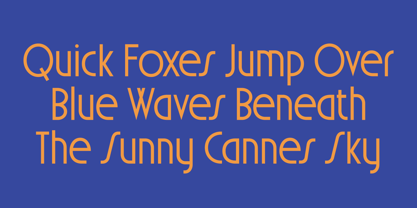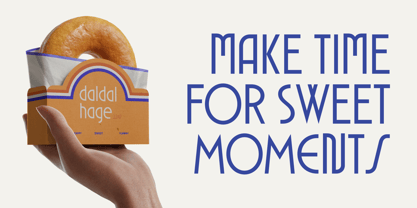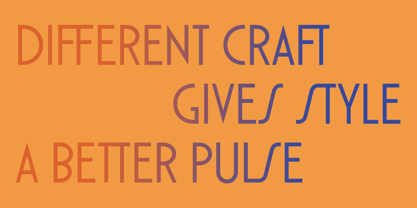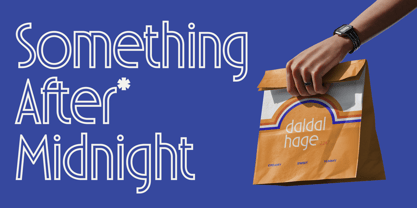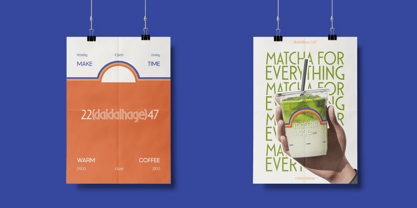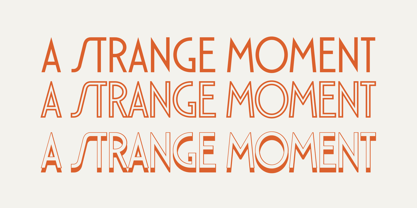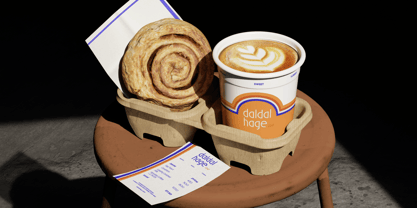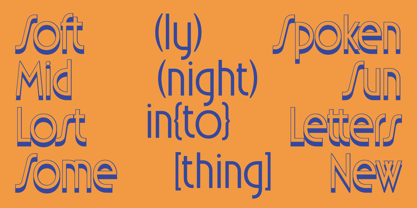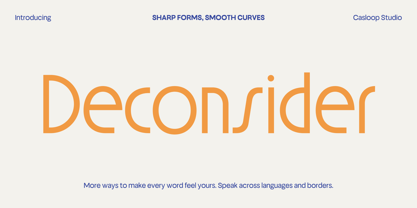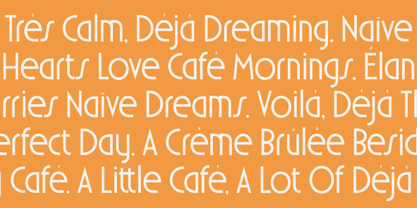
Deconsider
by Casloop Studio
The Deconsider Font Family was designed by Wantara Putra and published by Casloop Studio. Deconsider contains 3 styles and family package options. More about this family
Deconsider is a modern display font designed for cafe, food and beverage, and lifestyle branding, balancing structured geometry with a softer, more approachable character. Its defining letters A, M, N, V, C, G, O, S, and e create a distinctive tension between geometric construction and gentle forms, giving the typeface a personality that feels more expressive than a conventional geometric sans. This controlled contrast creates a warm yet confident visual rhythm, making Deconsider highly versatile for cafe identities, menus, packaging, headlines, body text, and vacation-inspired branding that calls for a contemporary but inviting aesthetic. Recommended pairing with: Manrope, DM Sans, Nunito Sans, Avenir, Futura, Helvetica Neue